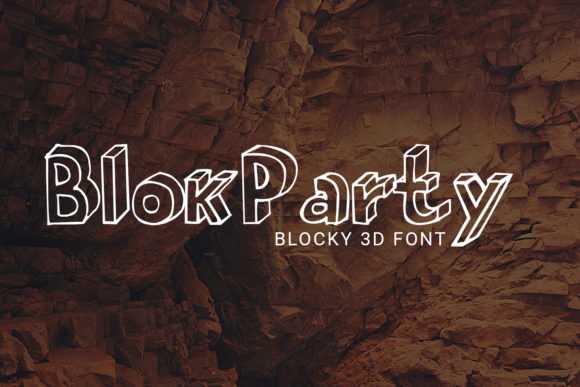
Introducing BlokParty Font: The Perfect Blend of Blocky and Delicate
Are you tired of using the same old fonts in your designs? Look no further than BlokParty, a distinctly blocky 3D font with a delicate charm that’s sure to inspire your next creative project. In this article, we’ll take a closer look at BlokParty and explore its unique features, uses, and benefits for designers and crafters.
The Unique Look of BlokParty
BlokParty is a one-of-a-kind font that combines the ruggedness of blocky letters with a touch of elegance and sophistication. Its 3D appearance gives it a bold and eye-catching quality that’s perfect for headlines, titles, and other display text. At the same time, its delicate charm ensures that it won’t overpower your design, making it suitable for a wide range of applications.
Design Possibilities with BlokParty
BlokParty’s versatility makes it an excellent choice for various design projects, including:
- Logos and branding: BlokParty’s unique look makes it an excellent choice for logos, icons, and other branding elements that require a distinctive and memorable appearance.
- Headlines and titles: BlokParty’s 3D appearance and bold style make it perfect for headlines, titles, and other display text that needs to grab attention.
- Signs and posters: BlokParty’s blocky and delicate charm makes it suitable for signs, posters, and other large-format prints that require a clear and easy-to-read font.
- Digital graphics: BlokParty can also be used in digital graphics, such as social media graphics, video game titles, and app icons.
Crafting with BlokParty
BlokParty is not just limited to digital design; it’s also perfect for crafters who enjoy working with physical materials. Here are some ideas for crafting with BlokParty:
- Paper crafting: Use BlokParty to create custom titles, headings, and decorations for your paper crafting projects, such as cards, scrapbook pages, and origami.
- Vinyl cutting: BlokParty’s bold and blocky style makes it perfect for vinyl cutting projects, such as custom signs, decals, and iron-on designs.
- Stencil making: Create custom stencils using BlokParty and use them for painting, drawing, or other artistic projects.
Tips for Using BlokParty
Here are some tips to help you get the most out of BlokParty:
- Experiment with colors: BlokParty looks great in a variety of colors, so don’t be afraid to experiment and find the perfect hue for your design.
- Play with textures: Add depth and interest to your design by combining BlokParty with different textures, such as wood, metal, or fabric.
- Mix and match: Combine BlokParty with other fonts or graphics to create a unique and eye-catching design.
BlokParty is a one-of-a-kind font that offers a perfect blend of blocky and delicate charm. Its versatility and unique look make it an excellent choice for designers and crafters looking to add some excitement to their projects. Whether you’re working on a digital design or a physical craft, BlokParty is sure to inspire your creativity and help you achieve professional-looking results.
Get inspired by BlokParty’s unique look and start creating amazing designs and crafts today!